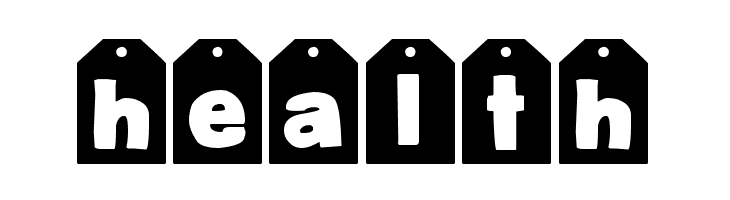
( Fonts by Darcy Baldwin )
A bold, decorative font with characters enclosed in tag-like shapes.
( Fonts by Darcy Baldwin )
A bold, decorative font with characters enclosed in tag-like shapes.
A bold, playful font with characters enclosed in tag-like shapes.